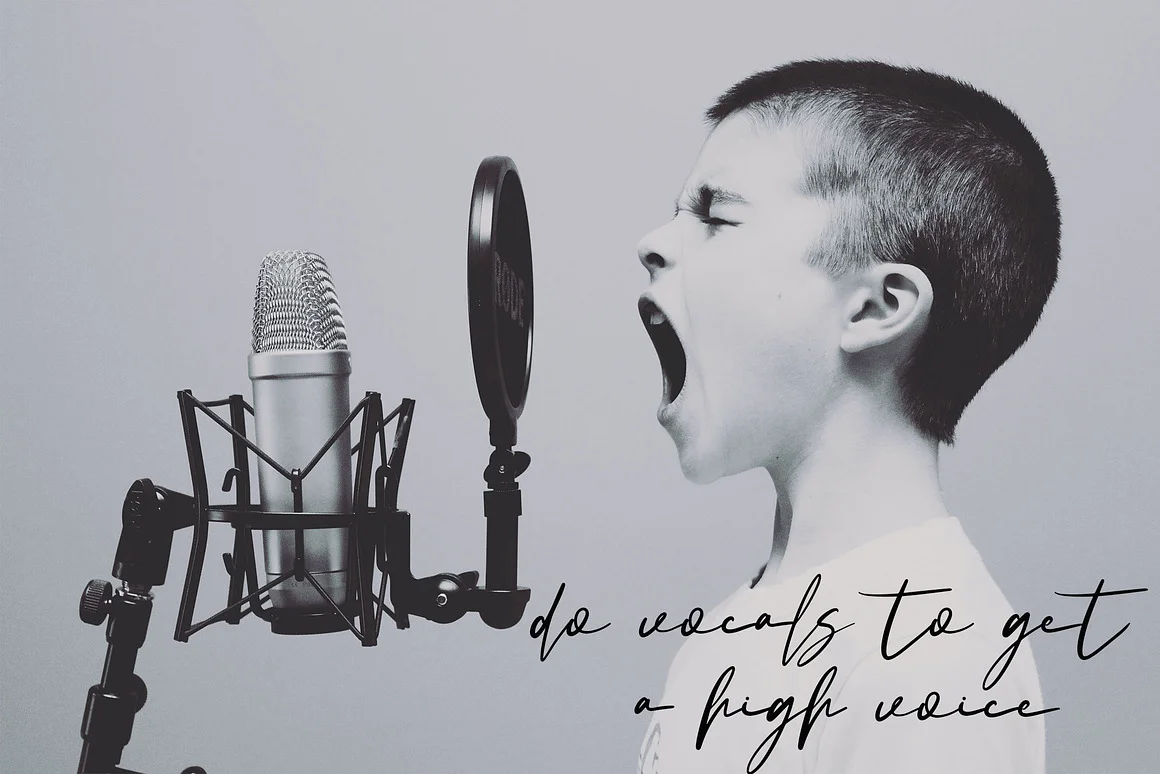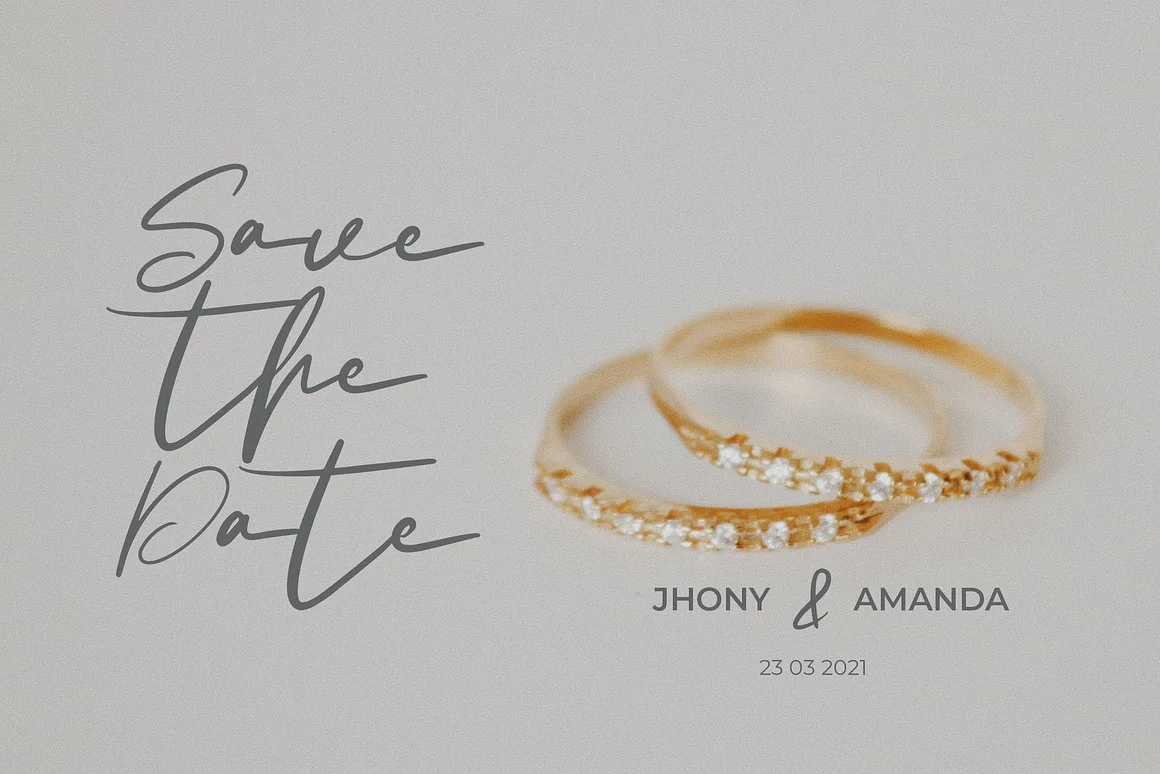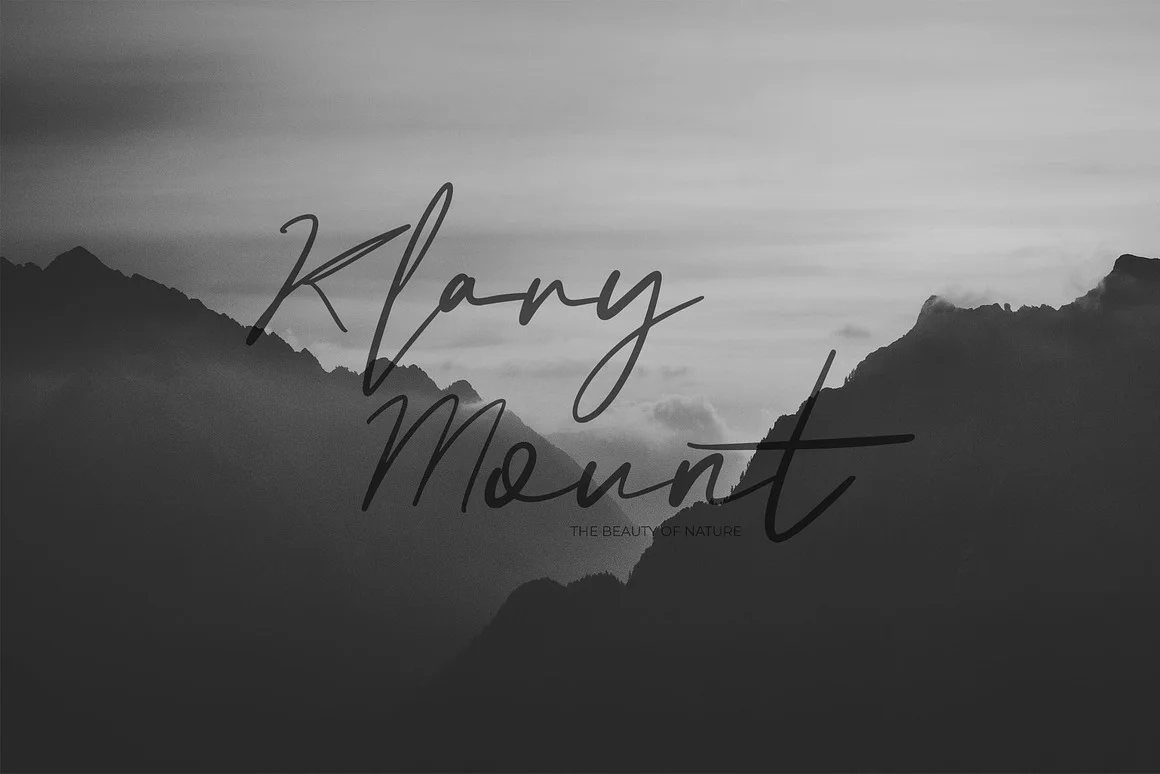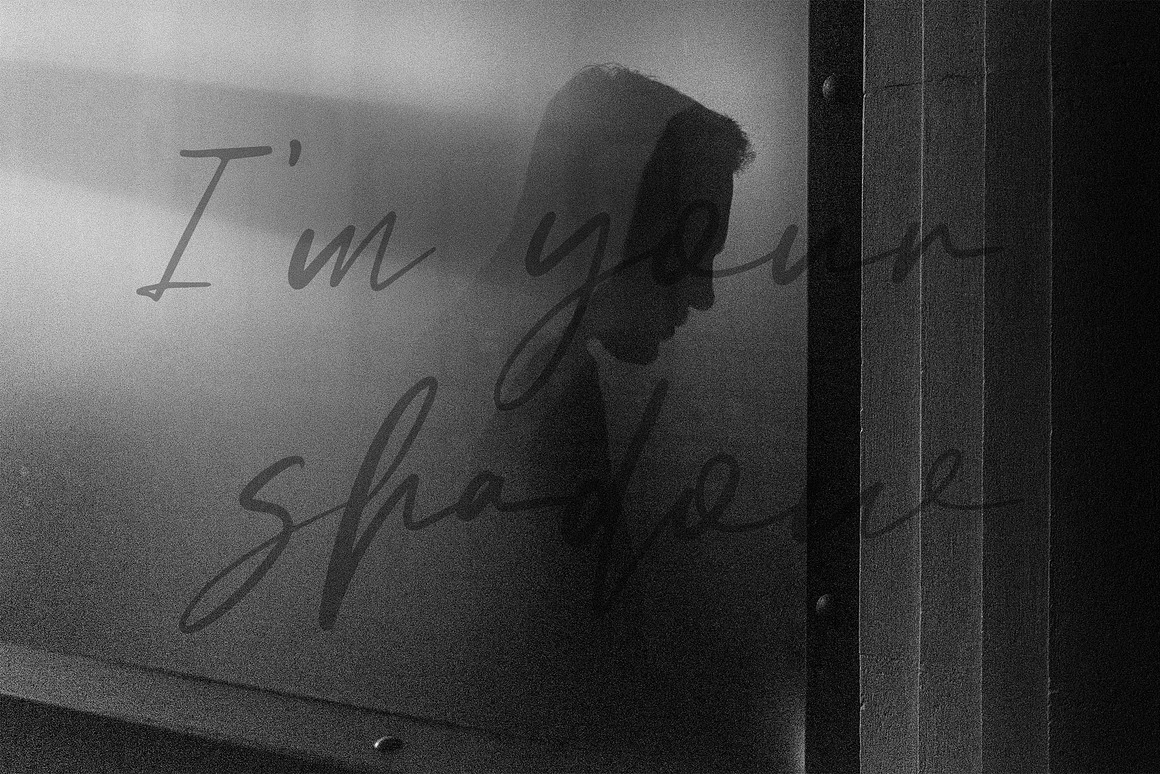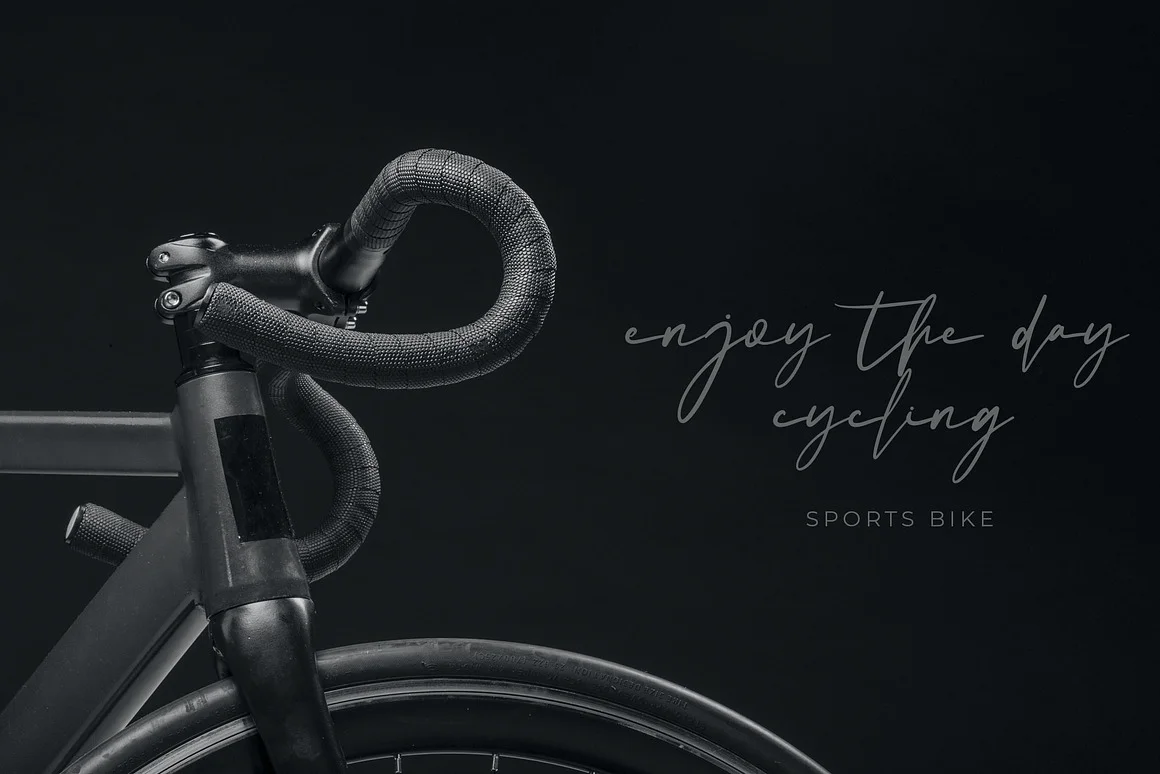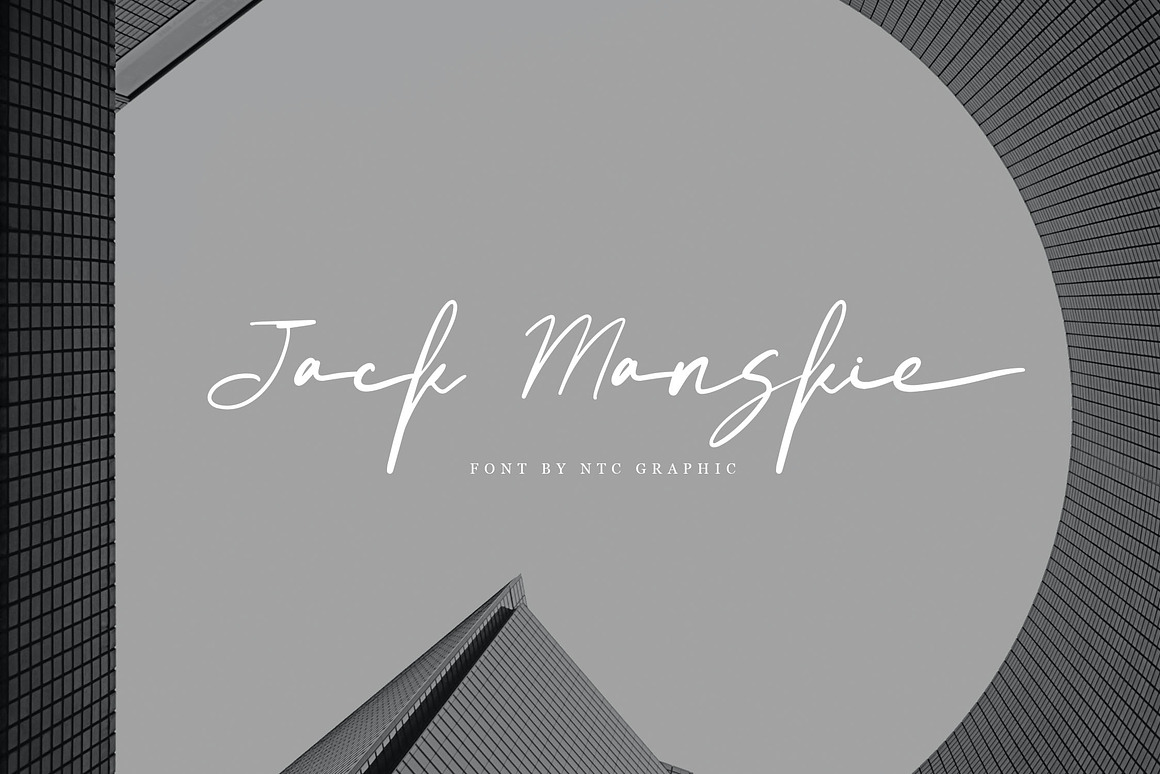
Jack Manskie Handwriting Script Font
When a design brief calls for both refined proportions and careful stroke modulation and immediate visual impact, type choices matter — Jack Manskie Handwriting Script answers that brief. The typeface brings an elegant, calligraphic sensibility to a broad range of creative disciplines, with a confident voice that adapts to diverse briefs that holds up whether the work is print-first or screen-first.
In practice, Jack Manskie Handwriting Script proves particularly effective for boutique logos, web design, feminine branding, greeting cards, poster creation. Designers reaching for it find that the type decisions feel resolved rather than laboured — a useful quality when client timelines are tight.
The range of applications extends to wedding invitations, editorial layouts, advertising campaigns, perfume labels. That breadth is deliberate: the proportions and spacing were stress-tested across a wide range of mock briefs before the typeface was finalised.
At smaller sizes the design retains its character without becoming cluttered. This resilience across scales makes Jack Manskie Handwriting Script equally suitable for a business card and a billboard — a useful property when assets must scale across a campaign.
UX designers establishing typographic systems for digital products find Jack Manskie Handwriting Script a reliable choice for projects that demand both personality and restraint. The design avoids the self-conscious quirkiness that dates quickly, settling instead for considered distinctiveness that holds up over time.